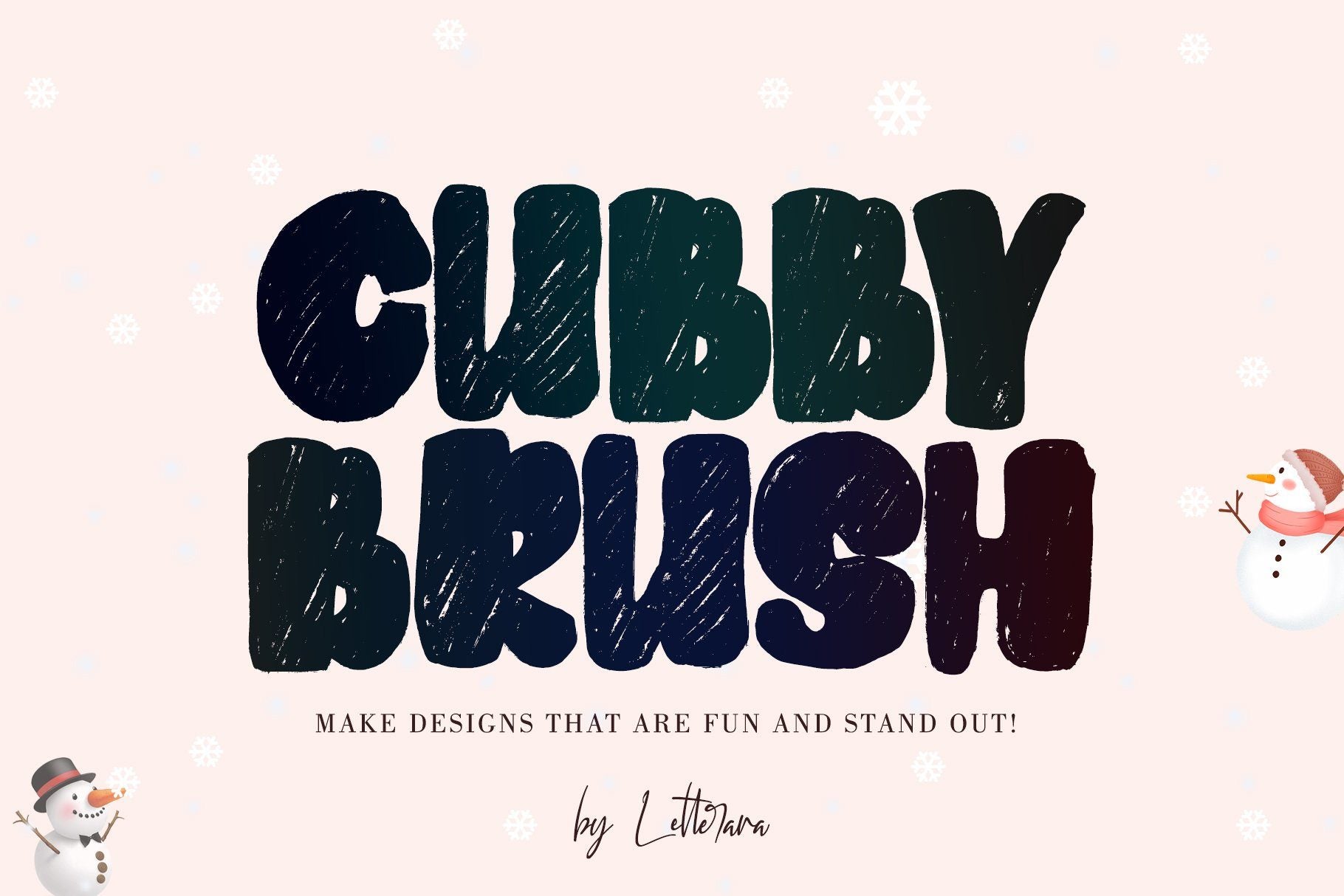
CUBBY BRUSH
About CUBBY BRUSH
cubbi brush Font is a brush font with a natural flow.  make designs that are fun and stand out! Features : – Upper Case – Numerals – Punctuations (OpenType Standard) – Accents (Multilingual characters) – Works on PC & Mac – Simple installations – Accessible in the Adobe Illustrator, Adobe Photoshop, Adobe InDesign, even works on Microsoft Word. don’t wait anymore, put it in your shopping basket 🙂 and follow me, because there will be many promos! Thanks for checking out my store, and feel free to get in touch if you have any questions!  Thank you 🙂 Our other products : BEST SELLER BLACK PINK SIGNATURE ANDORA BRIGITTA HEANFFE EIFFEL IN LOVE ( FONT TRIO) BLACK PINK SUMMER HONG KONG ANGEL MALEFICENT California Street BESTOWENS FAMILY